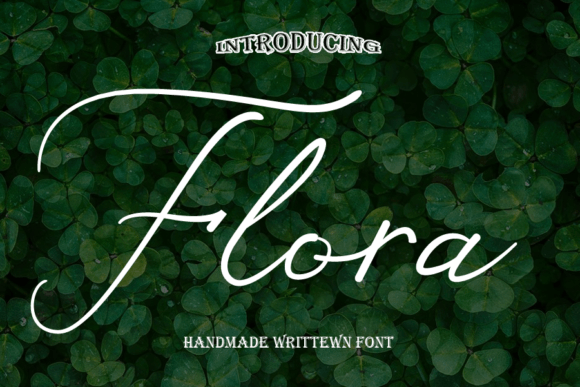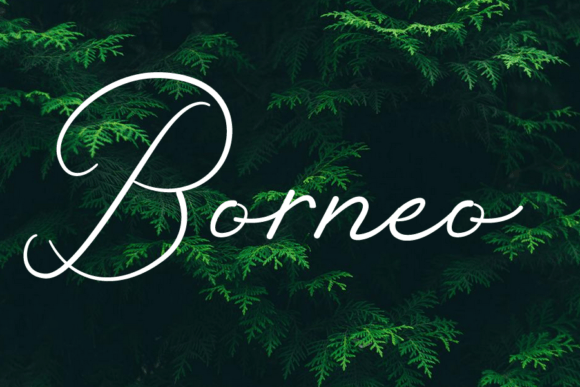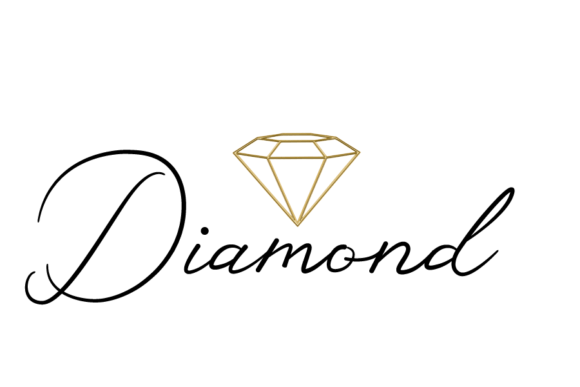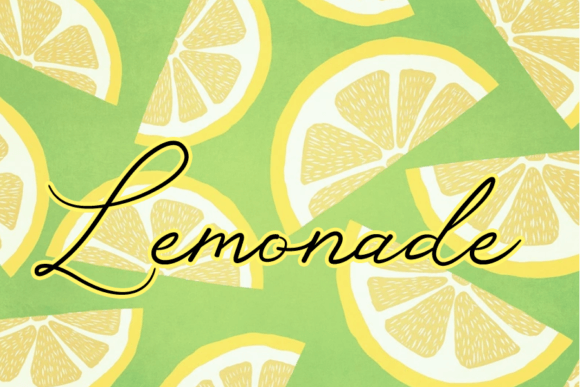
About Flora Font
Flora is an exquisite handwritten font that exudes beauty, making it an ideal choice for a diverse range of design projects. Its versatility lends itself well to branding, logos, wedding designs, social media posts, advertisements, product packaging, product designs, labels, photography, watermarks, invitations, stationery, and any project that benefits from a touch of handwriting taste.
The font’s inherent beauty adds a sense of elegance and charm to your designs, creating a visual appeal that captivates the audience. Whether you’re crafting a logo for a luxury brand, designing wedding invitations, or creating engaging social media content, Flora brings a unique and tasteful handwriting style to the table.
The broad spectrum of applications for Flora makes it a valuable asset for designers across various industries. Its ability to seamlessly integrate into different contexts ensures that it becomes a reliable choice for a wide array of creative projects.
As you incorporate Flora into your designs, you’ll notice its capacity to enhance the overall aesthetic with a touch of handwritten sophistication. Whether used for personal or professional purposes, Flora stands out as a font that not only meets but exceeds the expectations of those seeking a beautiful and versatile handwriting typeface.
In summary, Flora is more than just a font; it’s a design companion that brings beauty and elegance to your creative projects. From branding to invitations, let Flora be the enchanting element that elevates your designs and adds a distinctive handwriting taste to your work.